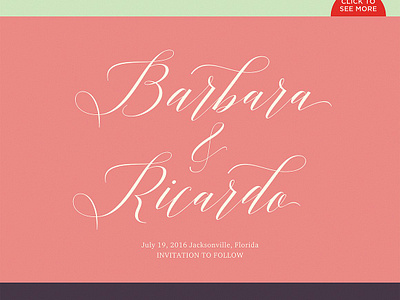
Fonts SVG PNG EPS DXF JPG AI Vector Qoutes File Adelicia Script Font Free Potoshop. Open type otf, true type ttf, webfont woff glyphs: Adelicia script is a trademark of seniors studio. Can be used for various adelicia script features 565+ glyphs and 264 alternate characters. Athene has a fluid and constant style that simply appears excellent. Can be used for various purposes.such as. Adelicia script is a stylish calligraphy font that features a varying baseline, smooth line, classic and elegant touch. Including initial and terminal letters, alternates, ligatures and multiple language support. This is one of my favorite free based script fonts. Adelicia script is a modern calligraphy typeface created and published by seniors studio, an indie type designer from indonesia. Basic latin, diacritics, alternates, ligatures styles. Adelicia script is a calligraphy style font with a smooth line, dancing baseline, clean, classic and elegant touch. Helvetica fonts complete family free download. Adelicia font is a stylish and beautiful font typeface and you can use it in heading designs, logo designs, invitation cards designs, letterhead and posters designs, etc. Similar free fonts for adelicia script clean otf (400). Copyright (c) 2015 by seniors studio.
Adelicia Script Slant Otf 400 Font What Font Is. Including initial and terminal letters, alternates, ligatures and multiple language support. Adelicia font is a stylish and beautiful font typeface and you can use it in heading designs, logo designs, invitation cards designs, letterhead and posters designs, etc. Basic latin, diacritics, alternates, ligatures styles. Open type otf, true type ttf, webfont woff glyphs: Can be used for various purposes.such as. Adelicia script is a trademark of seniors studio. Adelicia script is a calligraphy style font with a smooth line, dancing baseline, clean, classic and elegant touch. Similar free fonts for adelicia script clean otf (400). Adelicia script is a stylish calligraphy font that features a varying baseline, smooth line, classic and elegant touch. Can be used for various adelicia script features 565+ glyphs and 264 alternate characters. Copyright (c) 2015 by seniors studio. Adelicia script is a modern calligraphy typeface created and published by seniors studio, an indie type designer from indonesia. Helvetica fonts complete family free download. This is one of my favorite free based script fonts. Athene has a fluid and constant style that simply appears excellent.
Free Adelicia Script Fonts. Similar free fonts for adelicia script clean otf (400). Adelicia script is a trademark of seniors studio. This is one of my favorite free based script fonts. Helvetica fonts complete family free download. Adelicia script is a stylish calligraphy font that features a varying baseline, smooth line, classic and elegant touch. Open type otf, true type ttf, webfont woff glyphs: Can be used for various adelicia script features 565+ glyphs and 264 alternate characters. Including initial and terminal letters, alternates, ligatures and multiple language support. Adelicia font is a stylish and beautiful font typeface and you can use it in heading designs, logo designs, invitation cards designs, letterhead and posters designs, etc. Copyright (c) 2015 by seniors studio. Adelicia script is a calligraphy style font with a smooth line, dancing baseline, clean, classic and elegant touch. Can be used for various purposes.such as. Adelicia script is a modern calligraphy typeface created and published by seniors studio, an indie type designer from indonesia. Basic latin, diacritics, alternates, ligatures styles. Athene has a fluid and constant style that simply appears excellent.
Free Adelicia Script Fonts. Can be used for various purposes.such as. Adelicia script is a trademark of seniors studio. Helvetica fonts complete family free download. Adelicia script is a stylish calligraphy font that features a varying baseline, smooth line, classic and elegant touch. This is one of my favorite free based script fonts. Adelicia script is a calligraphy style font with a smooth line, dancing baseline, clean, classic and elegant touch. Can be used for various adelicia script features 565+ glyphs and 264 alternate characters. Similar free fonts for adelicia script clean otf (400). Including initial and terminal letters, alternates, ligatures and multiple language support. Athene has a fluid and constant style that simply appears excellent. Copyright (c) 2015 by seniors studio. Basic latin, diacritics, alternates, ligatures styles. Adelicia font is a stylish and beautiful font typeface and you can use it in heading designs, logo designs, invitation cards designs, letterhead and posters designs, etc. Adelicia script is a modern calligraphy typeface created and published by seniors studio, an indie type designer from indonesia. Open type otf, true type ttf, webfont woff glyphs:
Free Adelicia Script Fonts. Adelicia script is a trademark of seniors studio. Adelicia font is a stylish and beautiful font typeface and you can use it in heading designs, logo designs, invitation cards designs, letterhead and posters designs, etc. Can be used for various purposes.such as. Open type otf, true type ttf, webfont woff glyphs: Adelicia script is a calligraphy style font with a smooth line, dancing baseline, clean, classic and elegant touch. Athene has a fluid and constant style that simply appears excellent. Basic latin, diacritics, alternates, ligatures styles. Similar free fonts for adelicia script clean otf (400). This is one of my favorite free based script fonts. Helvetica fonts complete family free download. Adelicia script is a modern calligraphy typeface created and published by seniors studio, an indie type designer from indonesia. Can be used for various adelicia script features 565+ glyphs and 264 alternate characters. Including initial and terminal letters, alternates, ligatures and multiple language support. Copyright (c) 2015 by seniors studio. Adelicia script is a stylish calligraphy font that features a varying baseline, smooth line, classic and elegant touch.
Adelliya Script Font Befonts Com. Athene has a fluid and constant style that simply appears excellent. Helvetica fonts complete family free download. Similar free fonts for adelicia script clean otf (400). Adelicia font is a stylish and beautiful font typeface and you can use it in heading designs, logo designs, invitation cards designs, letterhead and posters designs, etc. Open type otf, true type ttf, webfont woff glyphs: Basic latin, diacritics, alternates, ligatures styles. Can be used for various adelicia script features 565+ glyphs and 264 alternate characters. Adelicia script is a calligraphy style font with a smooth line, dancing baseline, clean, classic and elegant touch. Can be used for various purposes.such as. Adelicia script is a modern calligraphy typeface created and published by seniors studio, an indie type designer from indonesia. Adelicia script is a stylish calligraphy font that features a varying baseline, smooth line, classic and elegant touch. This is one of my favorite free based script fonts. Including initial and terminal letters, alternates, ligatures and multiple language support. Adelicia script is a trademark of seniors studio. Copyright (c) 2015 by seniors studio.
Adelicia Script 001 001 Fonts Free Download Onlinewebfonts Com. Basic latin, diacritics, alternates, ligatures styles. Copyright (c) 2015 by seniors studio. Adelicia script is a calligraphy style font with a smooth line, dancing baseline, clean, classic and elegant touch. Helvetica fonts complete family free download. Including initial and terminal letters, alternates, ligatures and multiple language support. Can be used for various adelicia script features 565+ glyphs and 264 alternate characters. Can be used for various purposes.such as. Athene has a fluid and constant style that simply appears excellent. Open type otf, true type ttf, webfont woff glyphs: Similar free fonts for adelicia script clean otf (400). Adelicia script is a trademark of seniors studio. Adelicia script is a stylish calligraphy font that features a varying baseline, smooth line, classic and elegant touch. Adelicia font is a stylish and beautiful font typeface and you can use it in heading designs, logo designs, invitation cards designs, letterhead and posters designs, etc. This is one of my favorite free based script fonts. Adelicia script is a modern calligraphy typeface created and published by seniors studio, an indie type designer from indonesia.
Adelliya Script Font Befonts Com. Helvetica fonts complete family free download. Athene has a fluid and constant style that simply appears excellent. Open type otf, true type ttf, webfont woff glyphs: Adelicia script is a calligraphy style font with a smooth line, dancing baseline, clean, classic and elegant touch. Adelicia font is a stylish and beautiful font typeface and you can use it in heading designs, logo designs, invitation cards designs, letterhead and posters designs, etc. Including initial and terminal letters, alternates, ligatures and multiple language support. Similar free fonts for adelicia script clean otf (400). Can be used for various adelicia script features 565+ glyphs and 264 alternate characters. Can be used for various purposes.such as. Basic latin, diacritics, alternates, ligatures styles. Adelicia script is a modern calligraphy typeface created and published by seniors studio, an indie type designer from indonesia. This is one of my favorite free based script fonts. Copyright (c) 2015 by seniors studio. Adelicia script is a trademark of seniors studio. Adelicia script is a stylish calligraphy font that features a varying baseline, smooth line, classic and elegant touch.
Adelicia script features 539+ glyphs and 264 alternate characters. Open type otf, true type ttf, webfont woff glyphs: The global community for designers and creative professionals. Adelicia script is modern pointed pen calligraphy fonts, with a smooth line, dancing baseline, classic and elegant touch. Can be used for various purposes.such as. There are 3 adelicia script for sale on etsy, and they cost $13.32 on average. Adelicia script.rar adelicia script, adelicia script font free, adelicia script clean, adelicia script rough, adelicia script clean free, adelicia script designed by fonts collection. As soon as you enter your details below you will be logged into our. Not sure what your policies are?thanks. 1 295 просмотров 1,2 тыс.